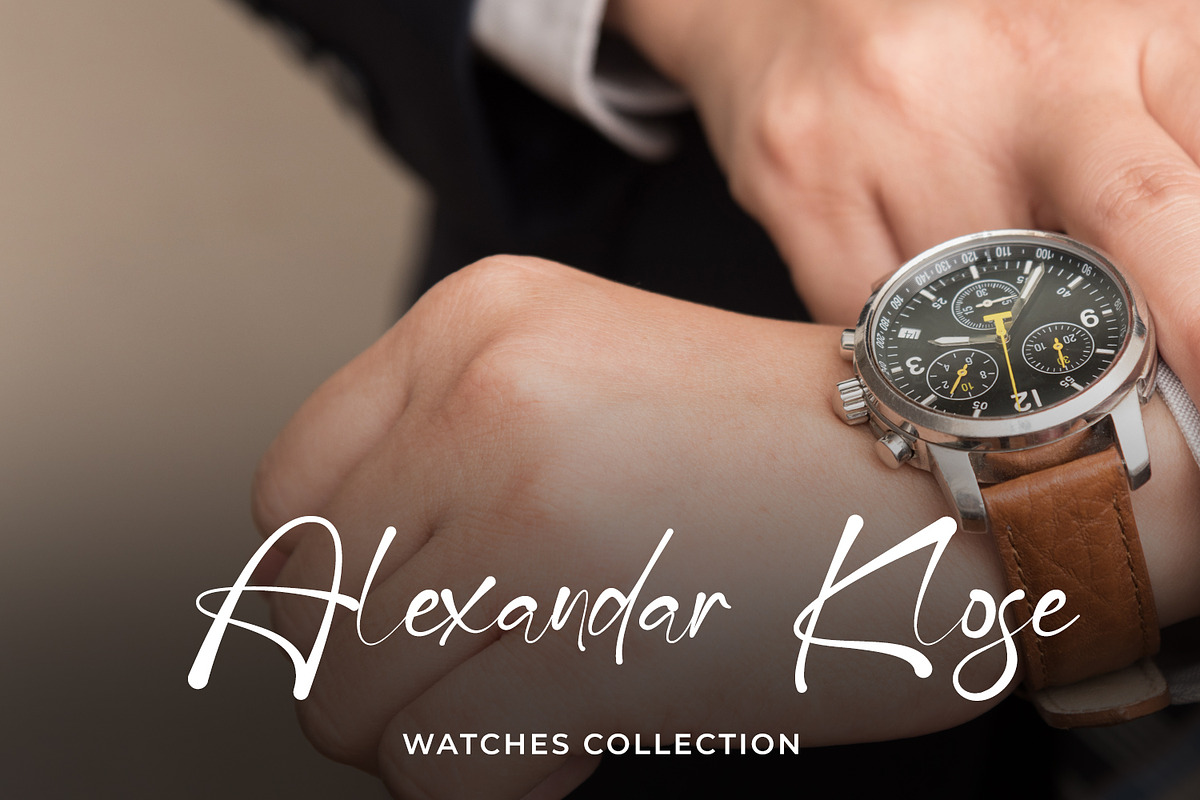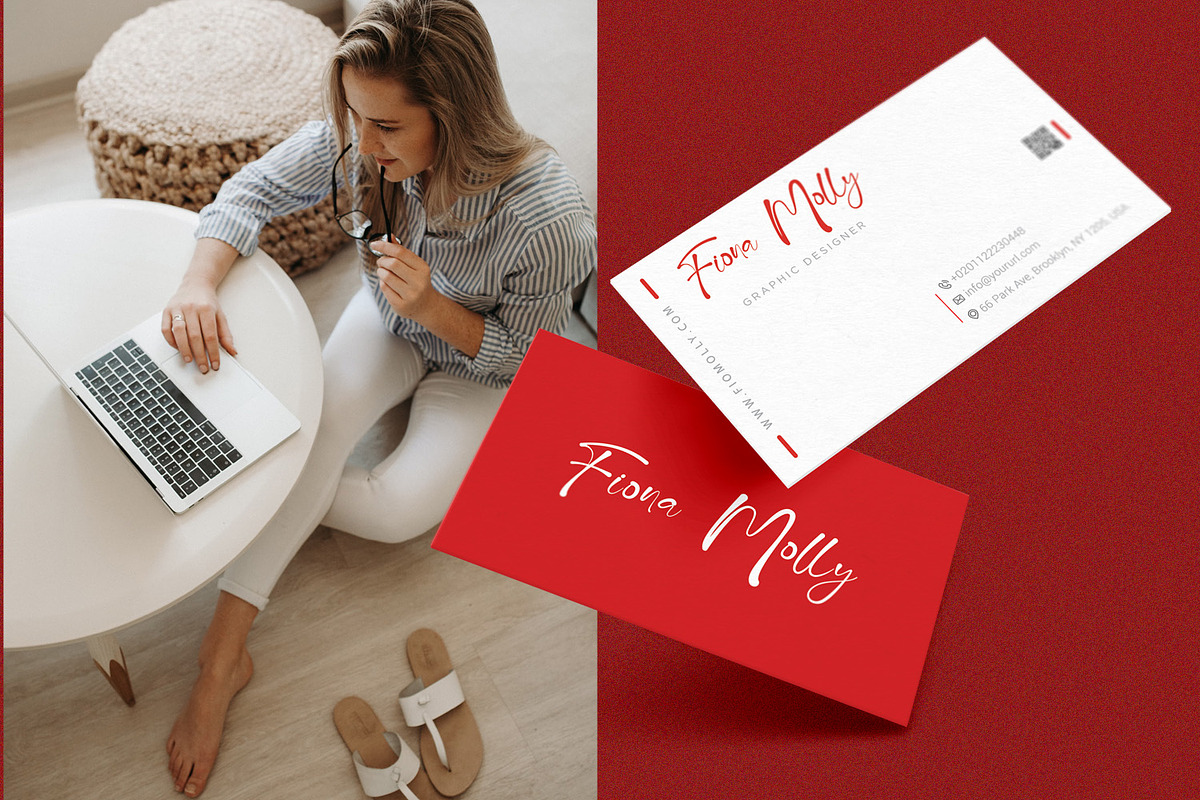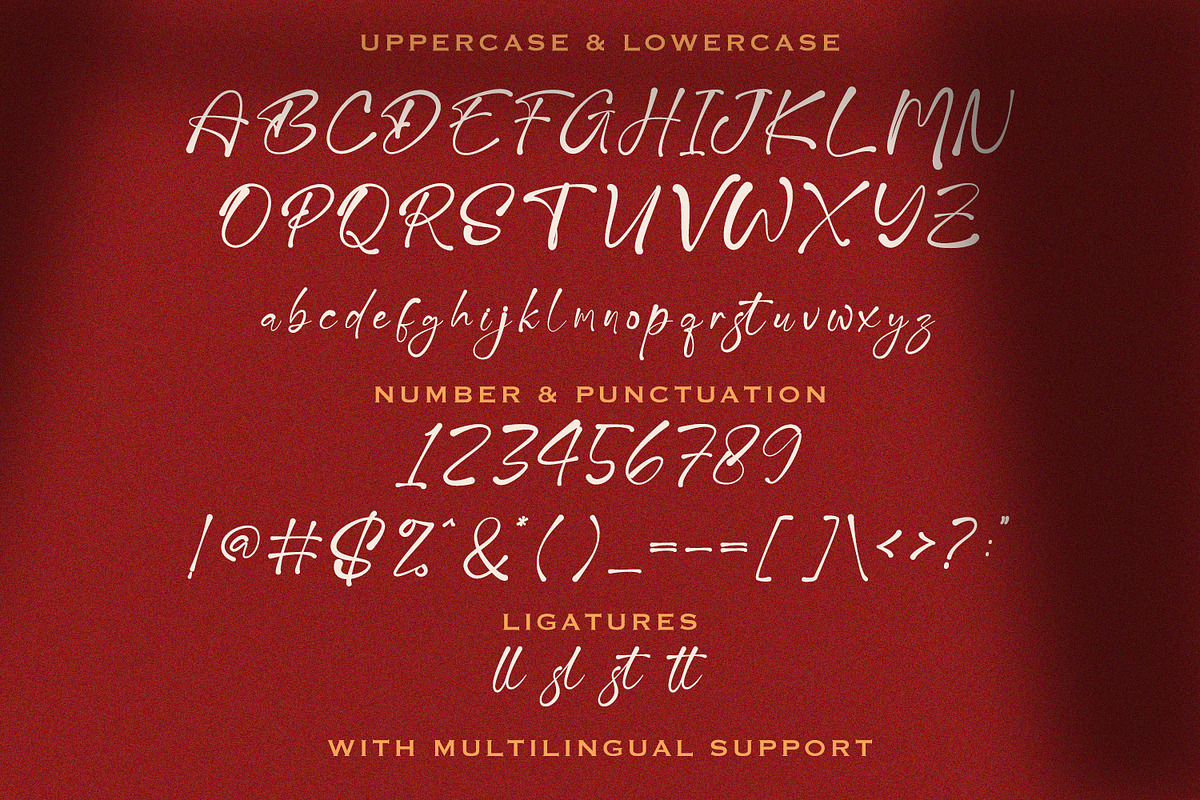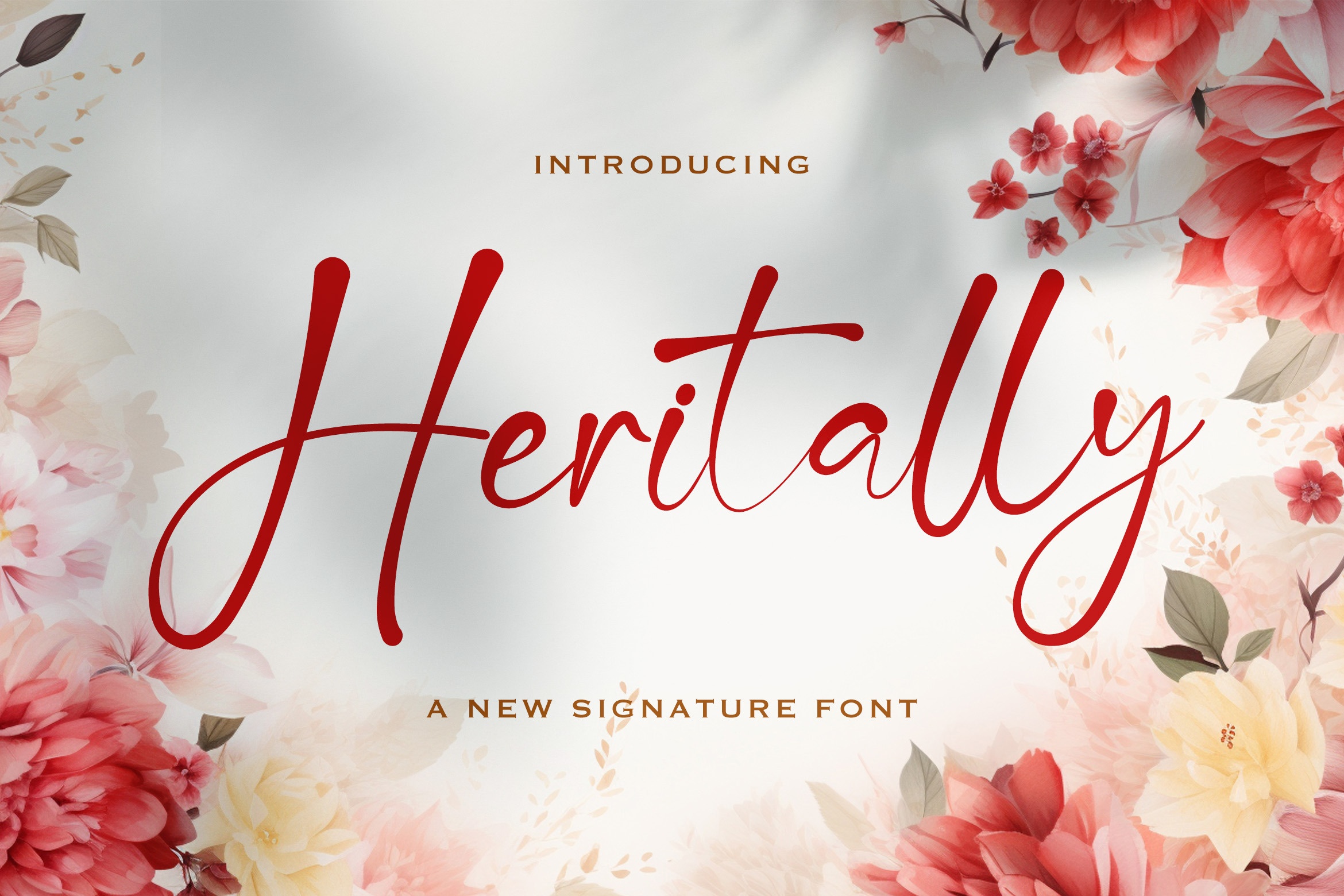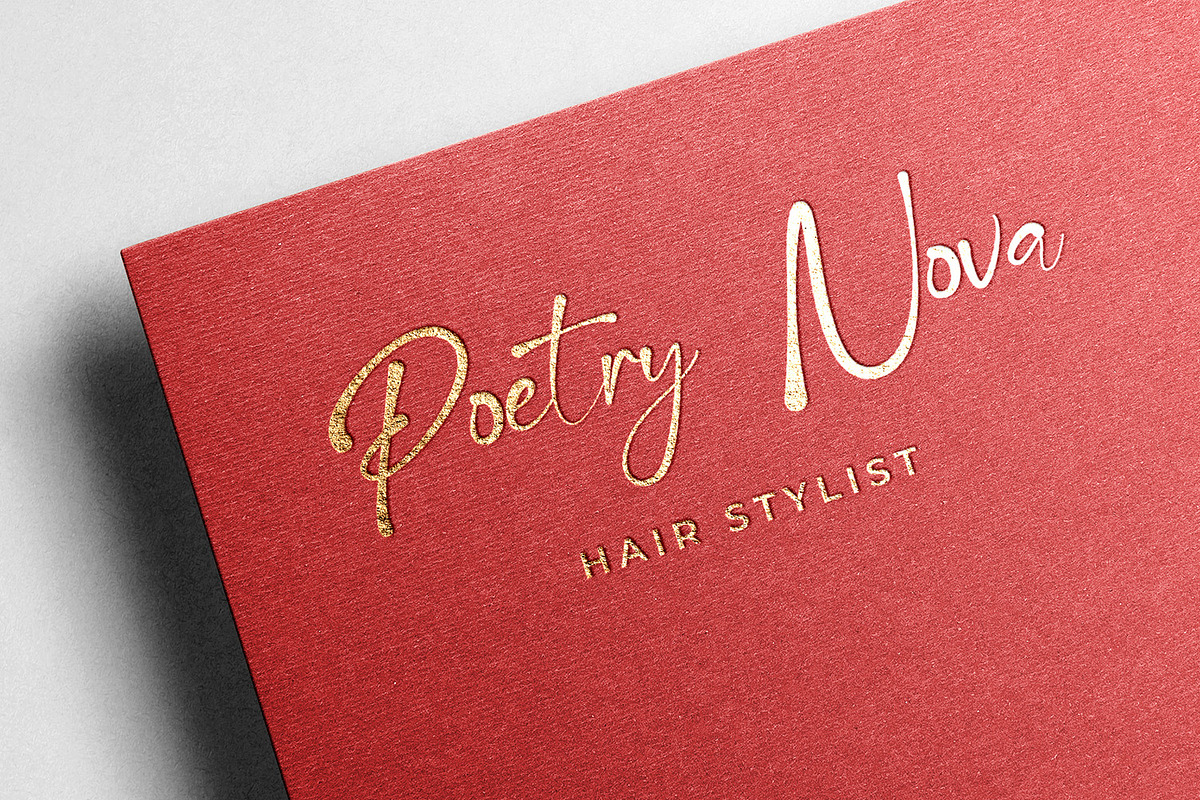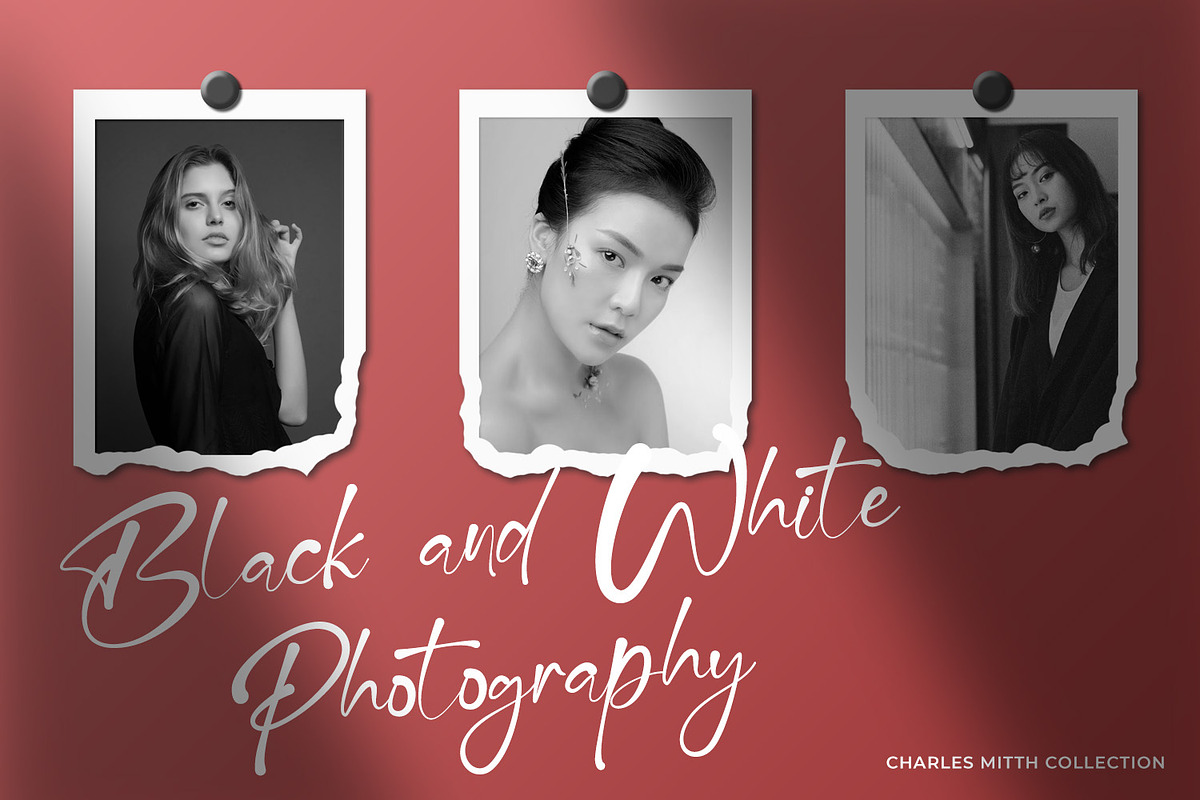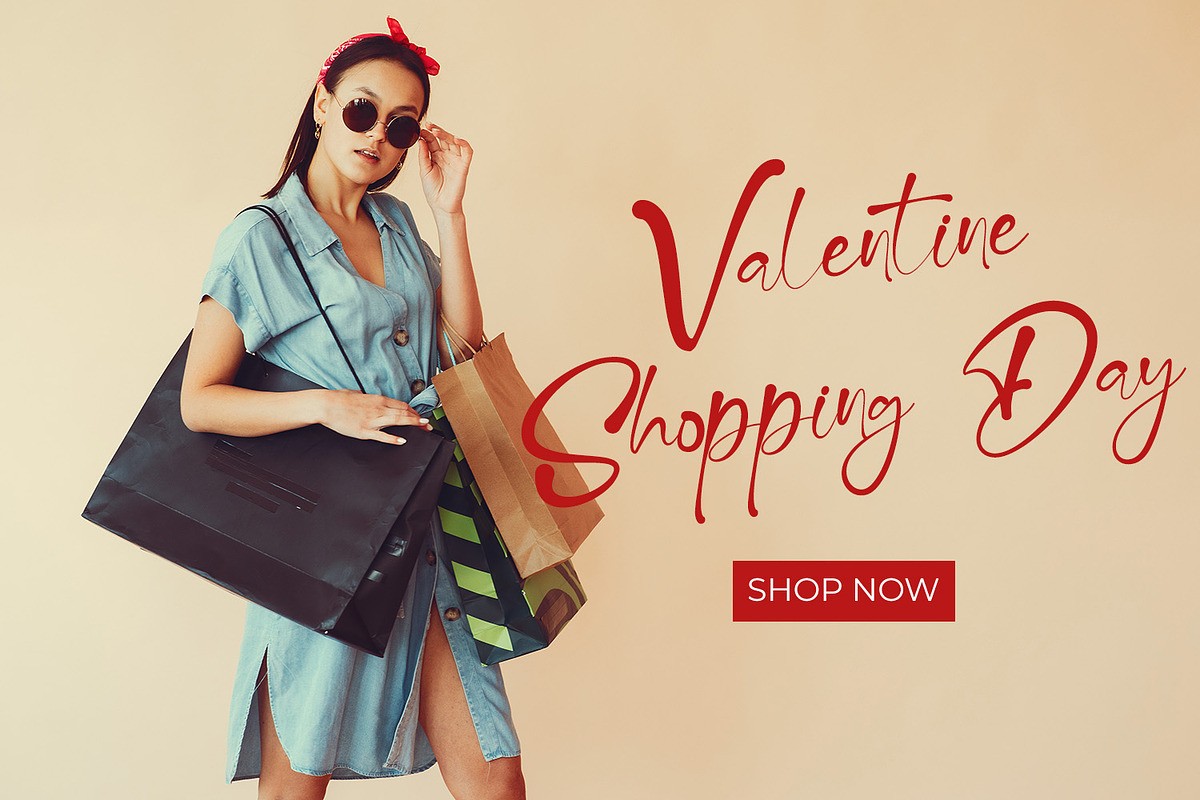
Heritally – Elegant Signature Font
Heritally is a clean and elegant signature font designed to express simplicity, beauty, and modern luxury. Crafted with smooth handwritten strokes and natural flow, this font delivers a refined yet personal character that works perfectly for high-end branding and stylish visual content.
Heritally is ideal for fashion brands, photography logos, personal branding, business cards, invitations, social media content, beauty products, editorial layouts, and lifestyle designs. Its graceful curves and balanced letterforms create a professional handwritten look that feels timeless and sophisticated.
The font includes uppercase and lowercase letters, numbers, punctuation, ligatures, and multilingual support, making it flexible for both print and digital projects.
Heritally is perfect for designers looking for a minimalist signature font with an elegant and premium feel.